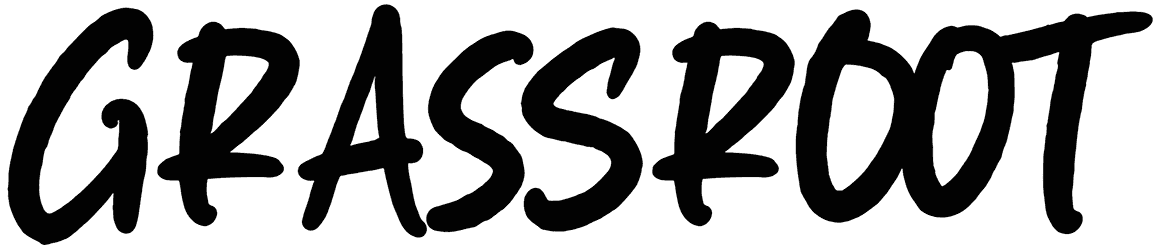
Grassroot Font
A realistic brush font like this one can throw an urban and engaging vibe into your design. The letters are soft and casual, but as a script font, it doesn’t offer lowercase letters or most punctuation marks. Use the Grassroot font for your street art event invitation design or whatnot, and grab a lot of attention.